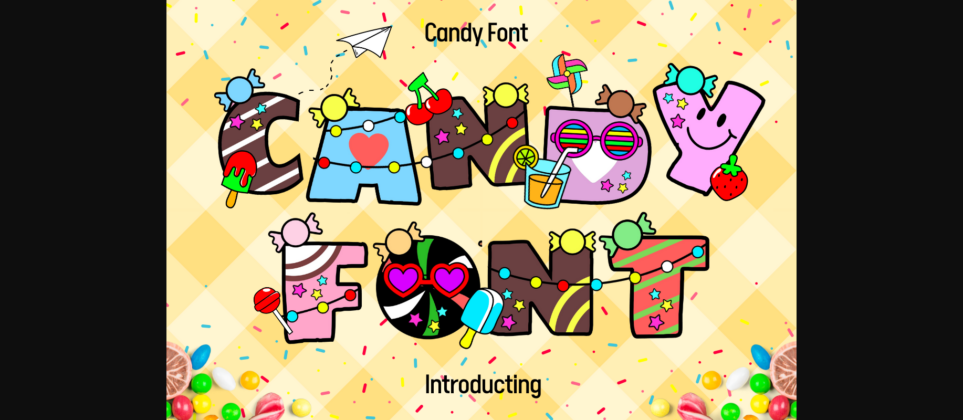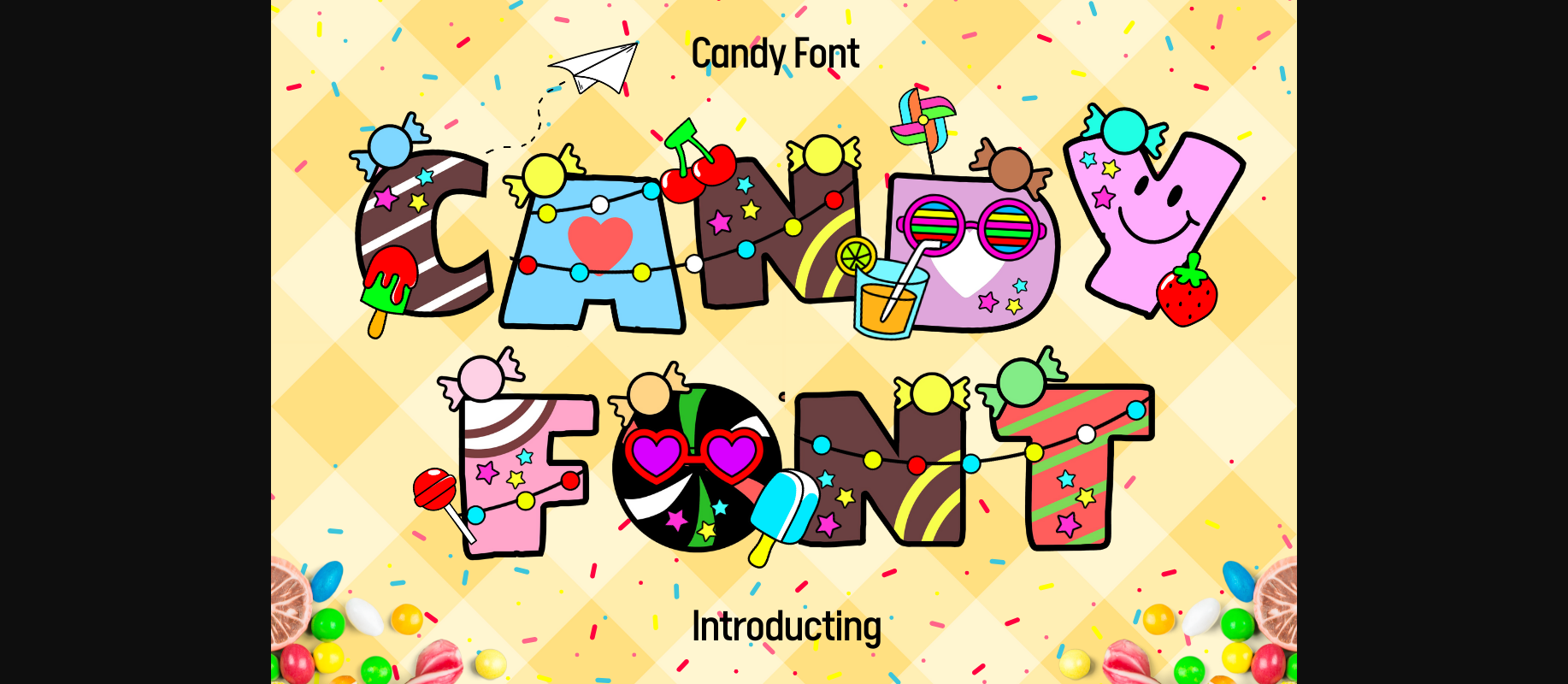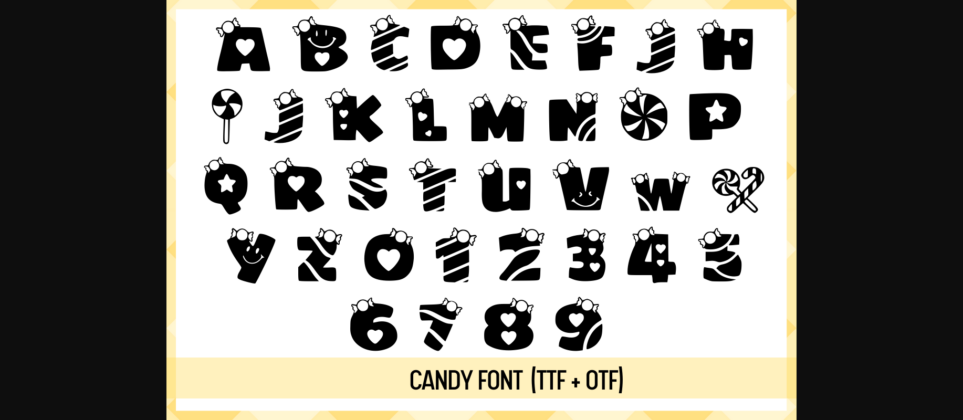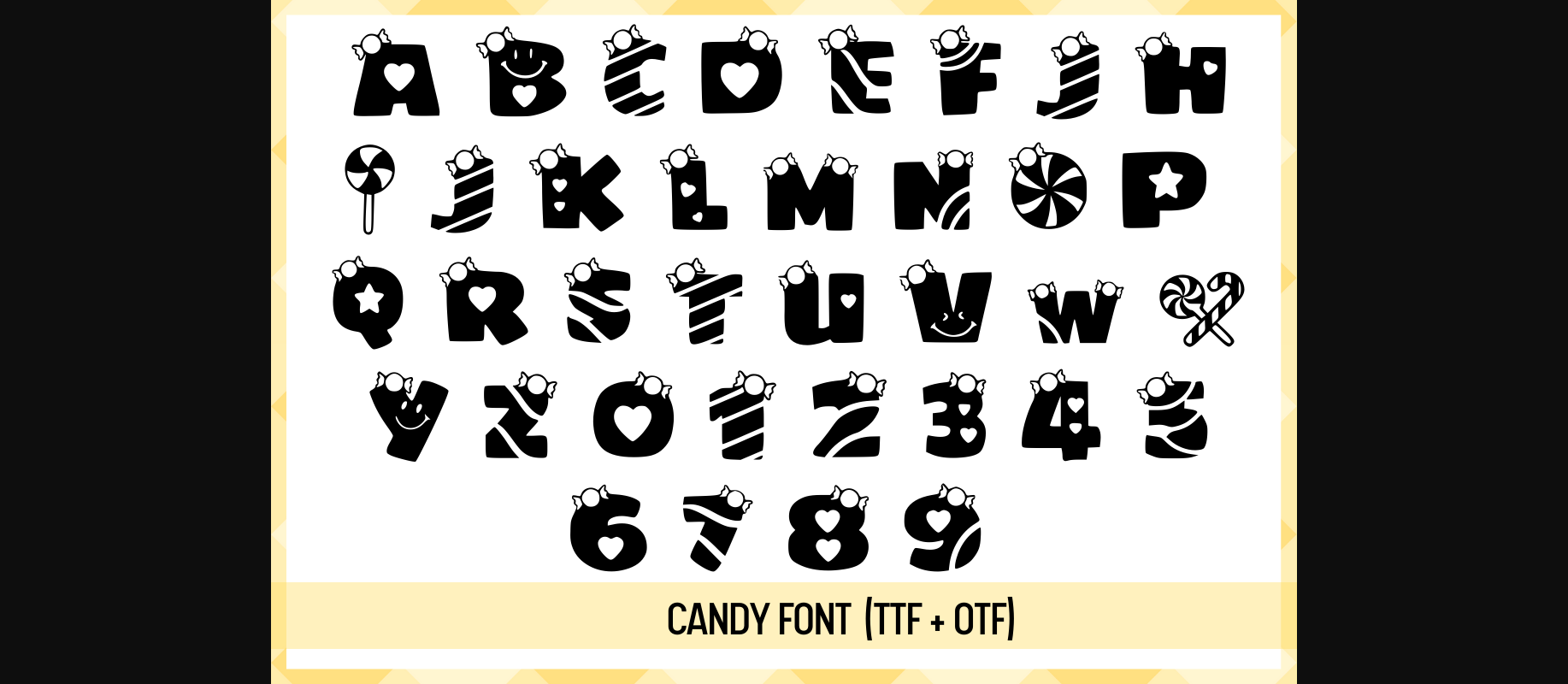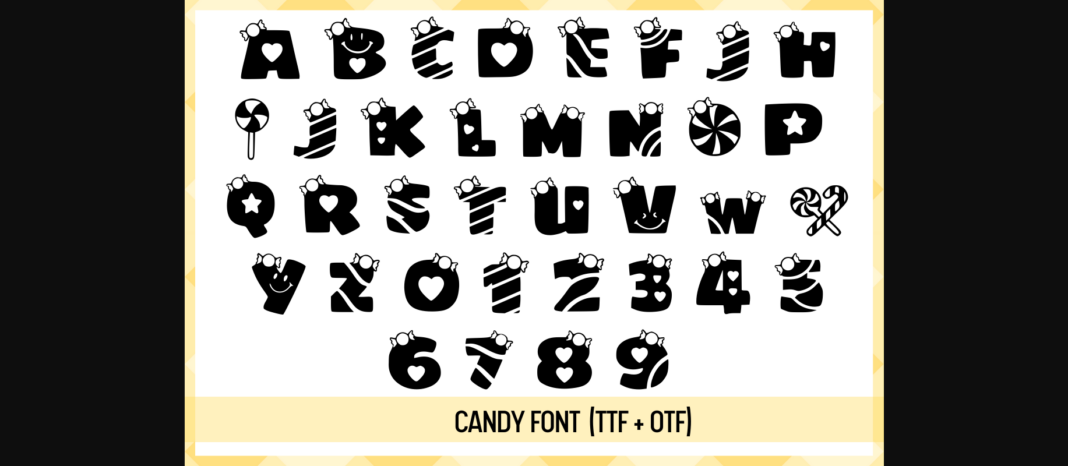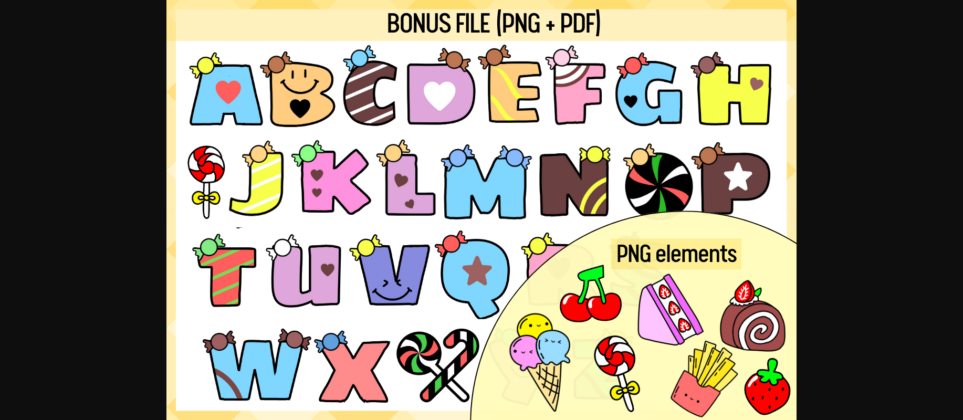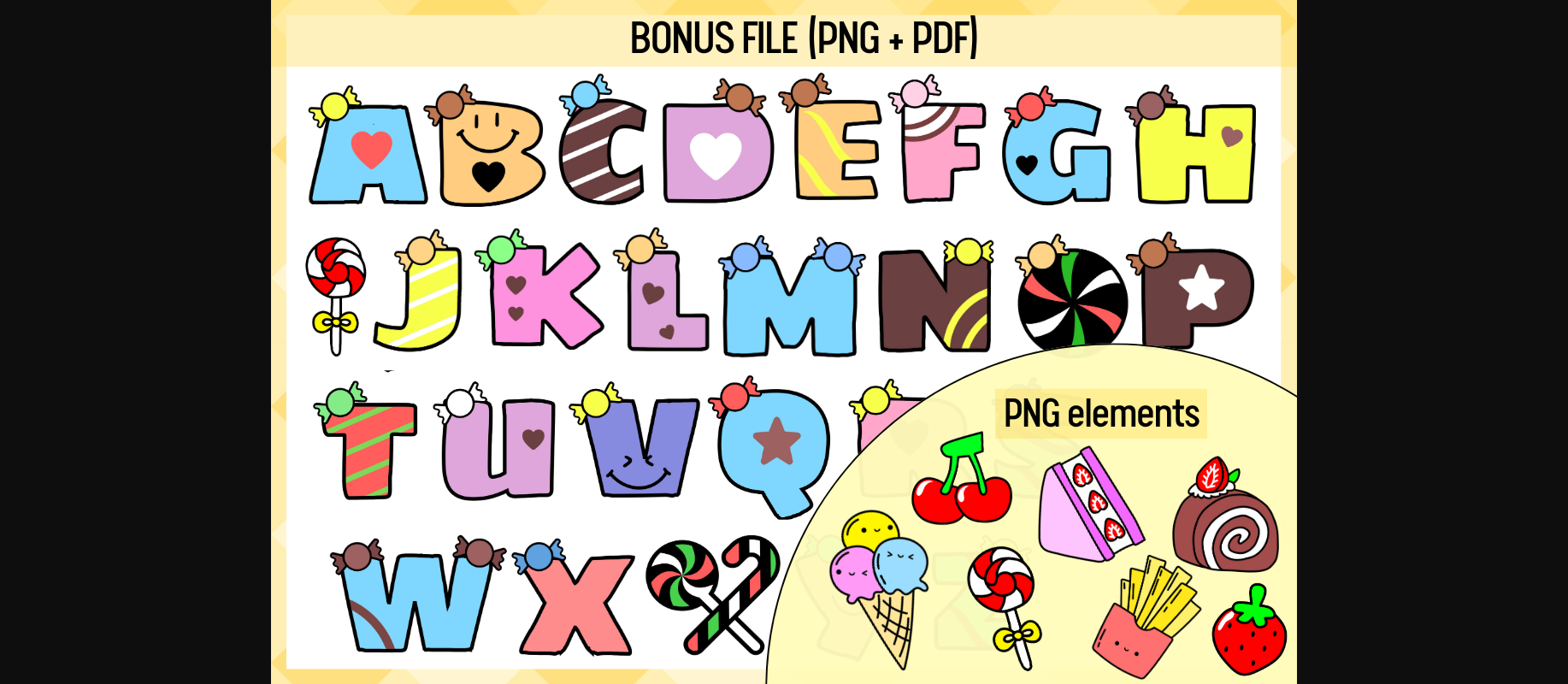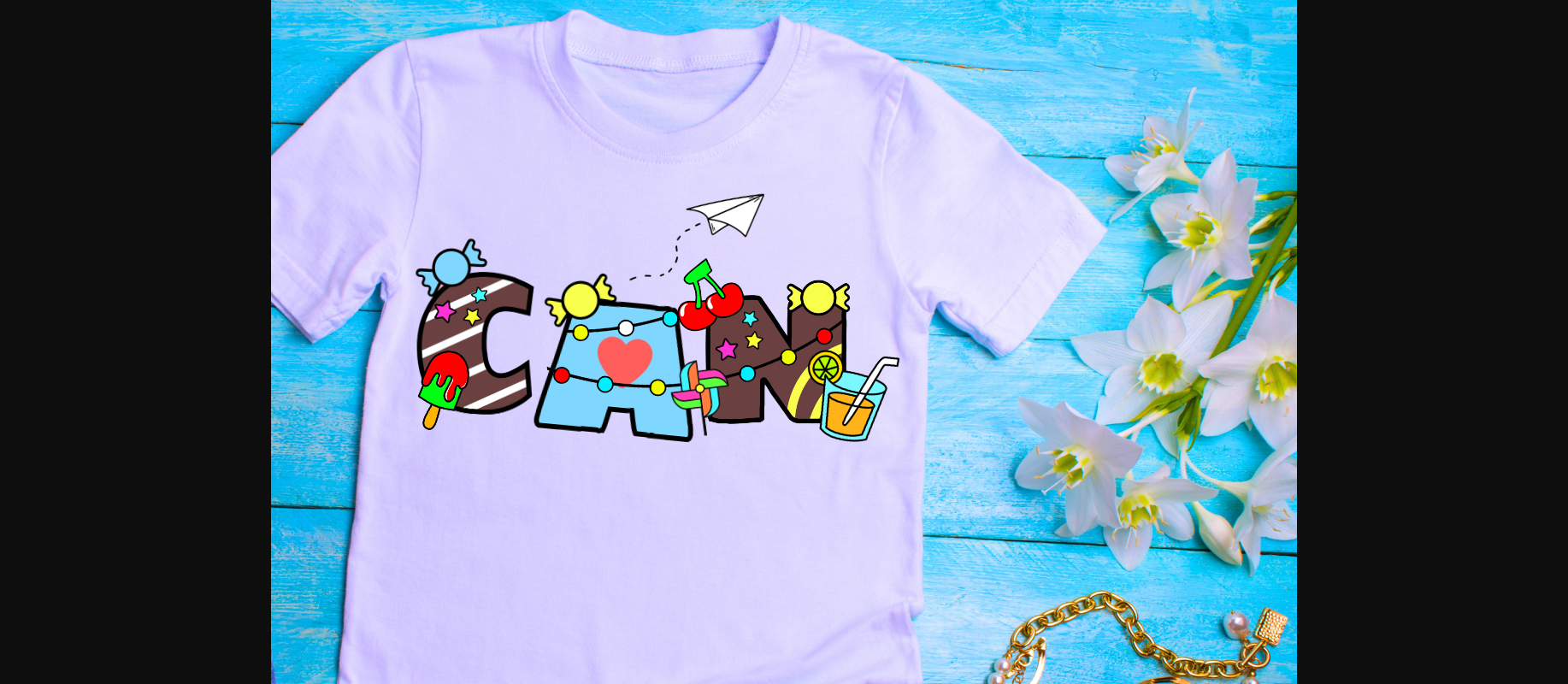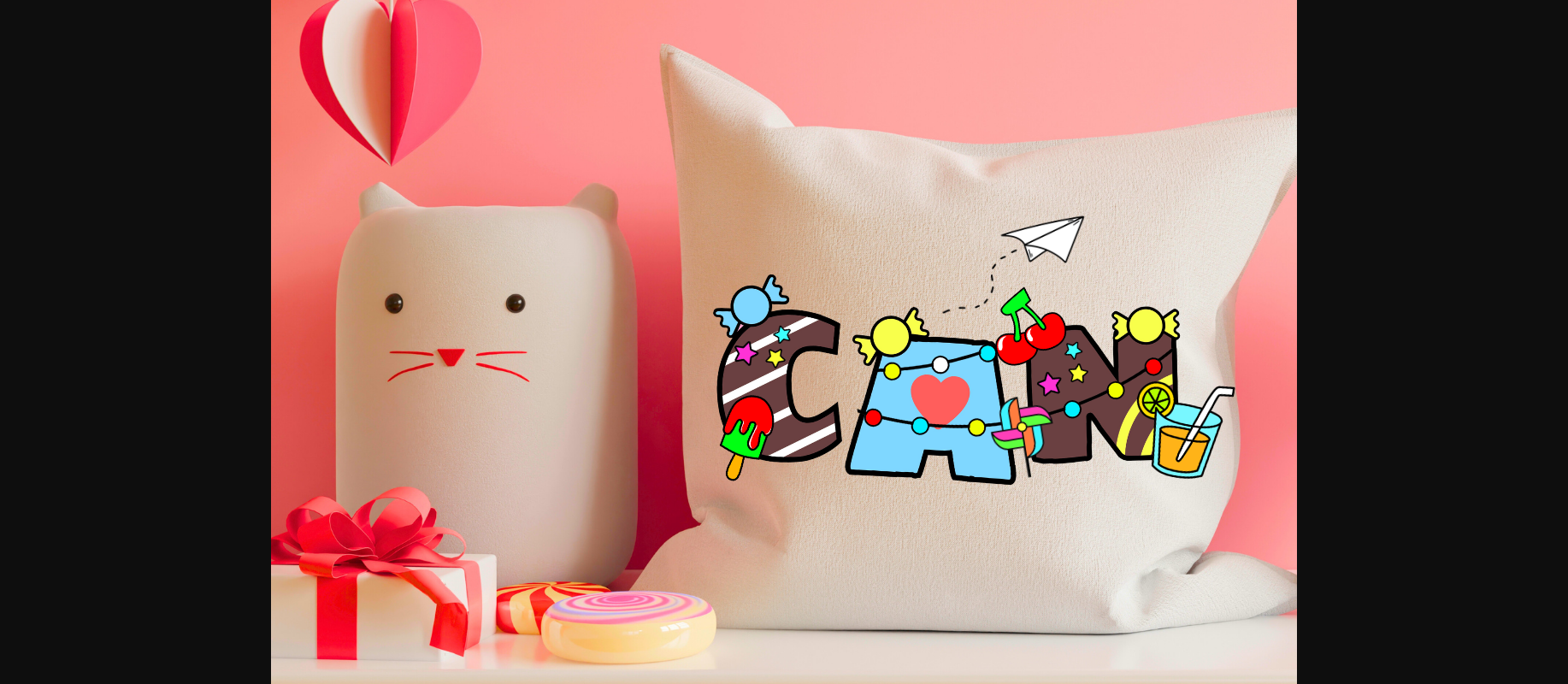
Candy Font
About Candy Font
Introducing Candy: a fun and playful decorative font filled with sweet treats like candies and lollipops! Perfect for adding a dash of whimsy to your projects, this font will bring a smile to your audience’s faces. Use it for party invitations, children’s books, or any design that needs a touch of sweetness. Let your creativity soar with Candy!